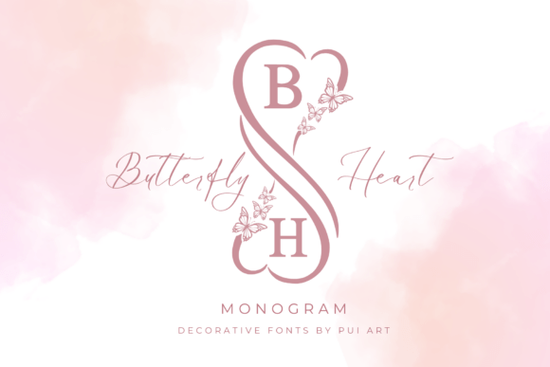
The Butterfly Heart Monogram Font is a unique and elegant choice for anyone looking to add a touch of romance and sophistication to their designs. Whether you're creating wedding invitations, custom t-shirts, or promotional materials, this font stands out with its beautiful combination of decorative letters inside a heart and butterfly-shaped frame. It’s perfect for special occasions and adds a personal, artistic flair that can elevate any project.
If you're searching for creative fonts that bring a sense of charm and style, the Butterfly Heart Monogram Font is a great addition to your collection. It works well for both digital and print projects, making it versatile for designers, crafters, and small businesses. The font's design makes it ideal for logos, greeting cards, and personalized items like mugs or apparel.
What Makes This Font Stand Out?
The Butterfly Heart Monogram Font isn’t just another decorative typeface it’s designed with attention to detail and aesthetic appeal. Each letter is carefully crafted to fit within a heart and butterfly motif, giving your work a unique visual identity. This makes it especially useful for events like weddings, birthdays, and other celebrations where a personal touch matters.
Unlike many generic fonts, this one offers a balance between elegance and readability. It’s not overly ornate, which means it can be used in a variety of contexts without overwhelming the design. Whether you’re working on a professional project or a personal hobby, this font provides a refined look that feels both modern and timeless.
Best Uses for the Butterfly Heart Monogram Font
- Wedding Invitations: Add a romantic and personalized touch to your event announcements.
- Custom Apparel: Use it on t-shirts, hoodies, or hats for a stylish and unique design.
- Logo Design: Create a memorable brand identity with a font that reflects creativity and grace.
- Greeting Cards: Make your messages more meaningful with a beautifully designed font.
- Print-on-Demand Products: Enhance your product listings with eye-catching text that stands out.
The Butterfly Heart Monogram Font is a standout choice for anyone looking to add a touch of elegance and creativity to their designs. Its unique structure and versatility make it suitable for a wide range of applications, from formal events to casual projects. Whether you're a designer, a crafter, or a small business owner, this font can help you express your vision in a visually appealing way.